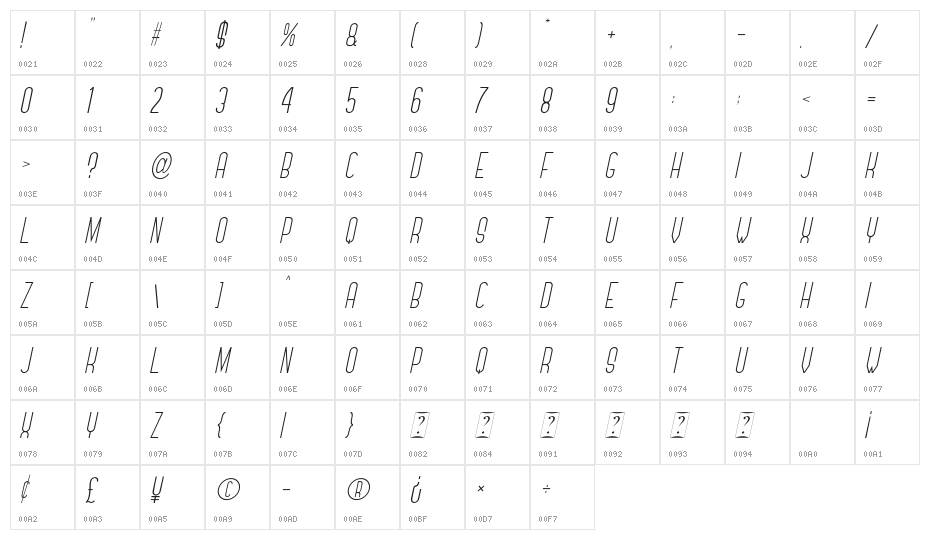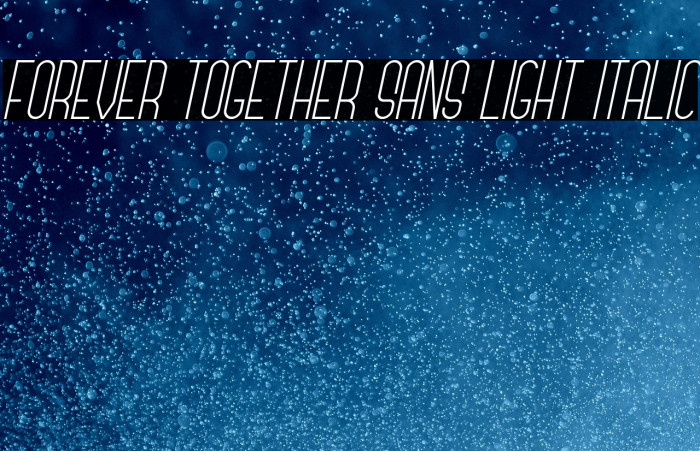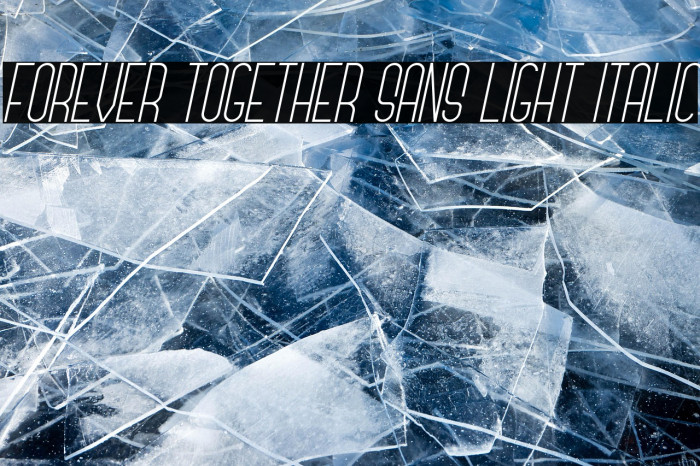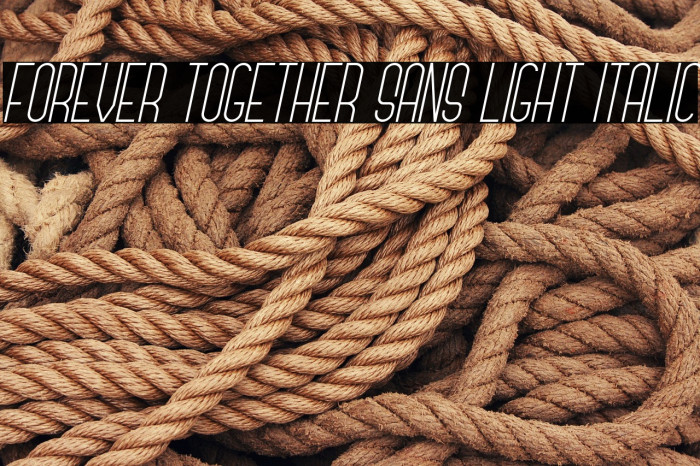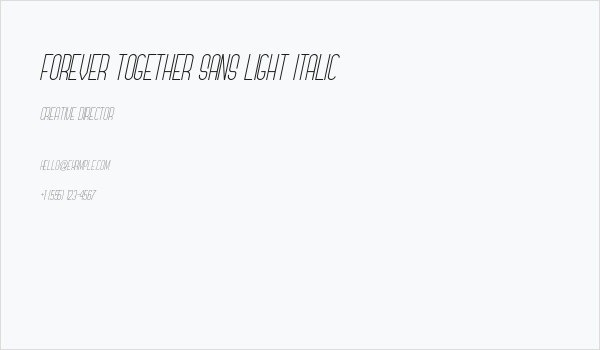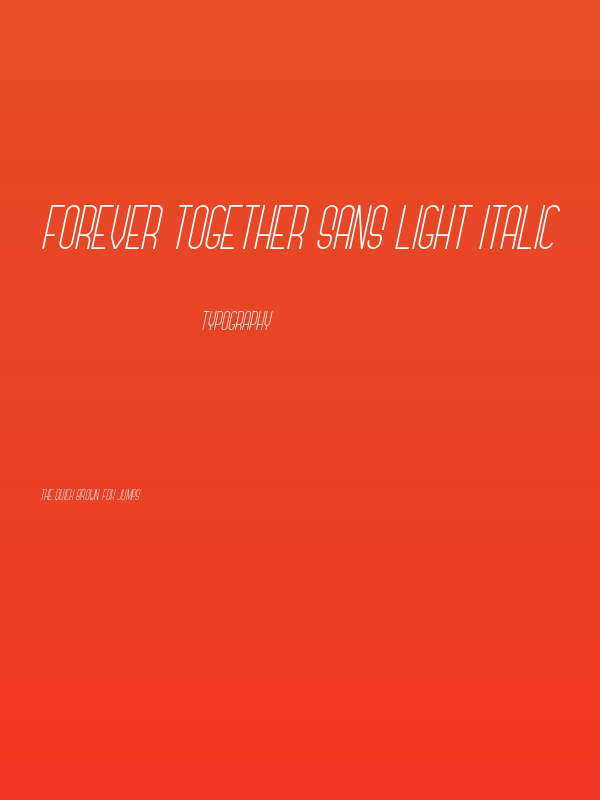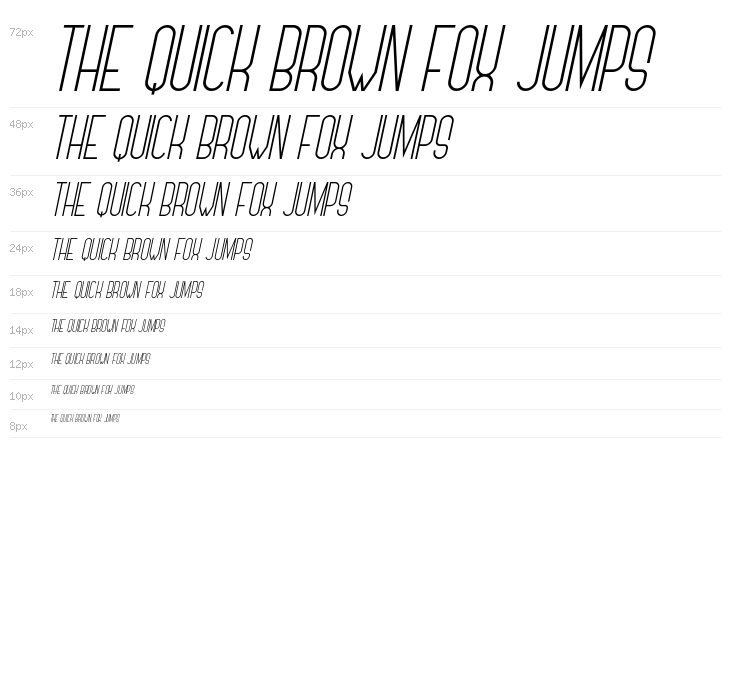
Forever Together Sans Light Italic Font
Forever Together Sans Light Italic Description
This font features a sleek and modern design with a light weight and italic style. The characters are elongated and slightly condensed, giving it a sophisticated and elegant appearance. The strokes are consistent in thickness, offering a low contrast that enhances readability while maintaining a stylish look. The font's clean lines and minimalistic approach make it suitable for contemporary design projects. Its italic nature adds a dynamic and flowing feel, making it ideal for creative and expressive applications.